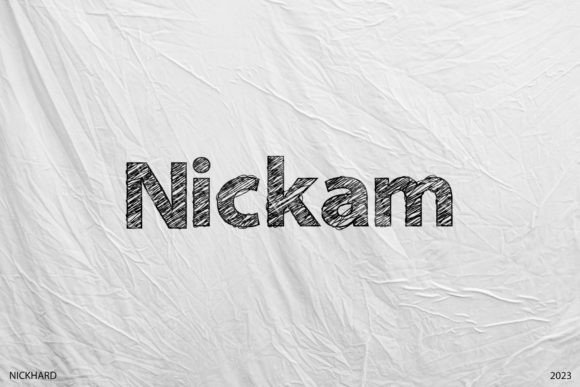
Behold, designers and typography enthusiasts, the Nickam Font – a spirited and playful handwritten display font, ready to infuse your streetwear designs with a dash of urban flair and individuality.
Crafted with meticulous care by the talented Nickhard, Nickam Font exudes a captivating charm that's sure to leave a lasting impression on your audience. Its bold strokes and energetic flow mimic the raw energy of street culture, inviting your designs to break free from the ordinary and embrace the vibrant pulse of urban life.
Unleash your creativity and let Nickam Font guide you on a journey through the vibrant streets, where bold statements and eye-catching visuals reign supreme. Whether you're designing streetwear apparel, posters, flyers, or packaging, Nickam Font effortlessly blends into the urban landscape, resonating with a youthful and rebellious spirit.
Picture this: your streetwear designs adorned with Nickam Font's unique charm, effortlessly capturing the attention of your target audience. The font's energetic lines and expressive curves bring a sense of movement and dynamism to your work, creating a visual feast that demands attention. Your customers will be drawn to the authenticity and boldness of your designs, feeling a connection to the vibrant energy of the streets.
With Nickam Font, you'll find yourself effortlessly creating designs that speak to the heart of streetwear culture. Its playful personality and urban edge will set your work apart, leaving a lasting impression on your audience. Join the ranks of creative visionaries who harness the power of Nickam Font to elevate their streetwear designs to new heights of originality and expression.
So, dive into the world of Nickam Font and let your creativity soar. Embrace the urban spirit, push the boundaries of design, and create masterpieces that embody the essence of streetwear fashion. Make your mark on the world, one design at a time, with the captivating energy of Nickam Font.